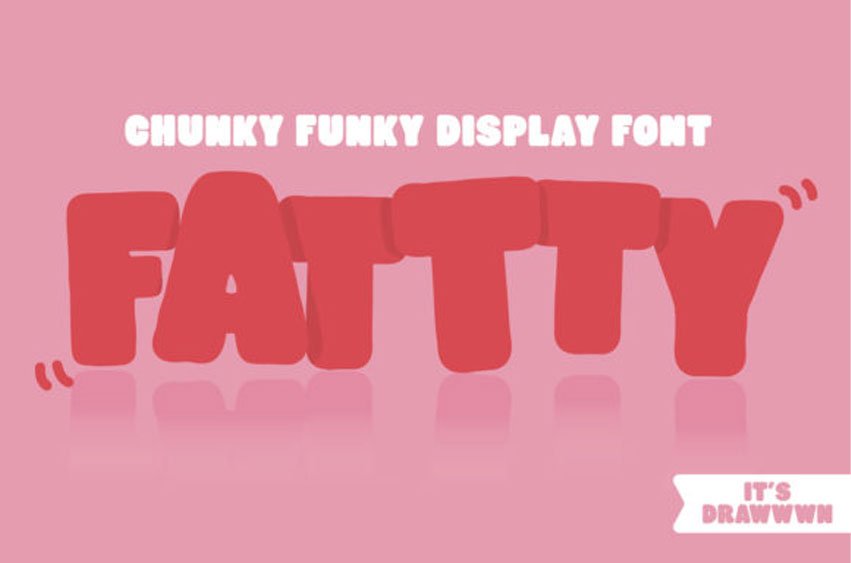
Fattty Font
Fattty Font is a fun, chunky lettered display font. Its friendly feel makes this font incredibly versatile, fitting a wide range of contexts.
Add it to your creative ideas and notice how it makes them stand out!